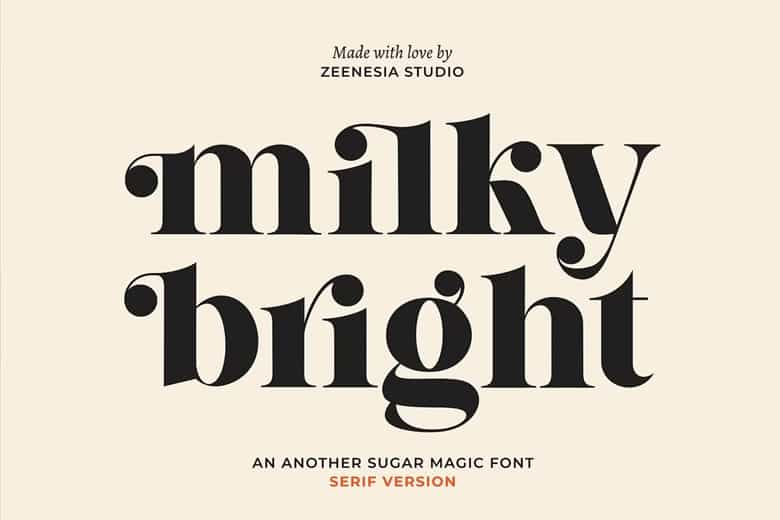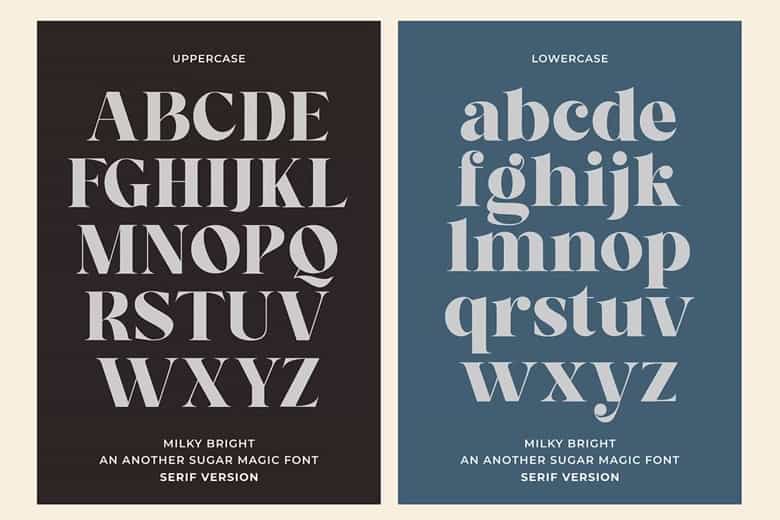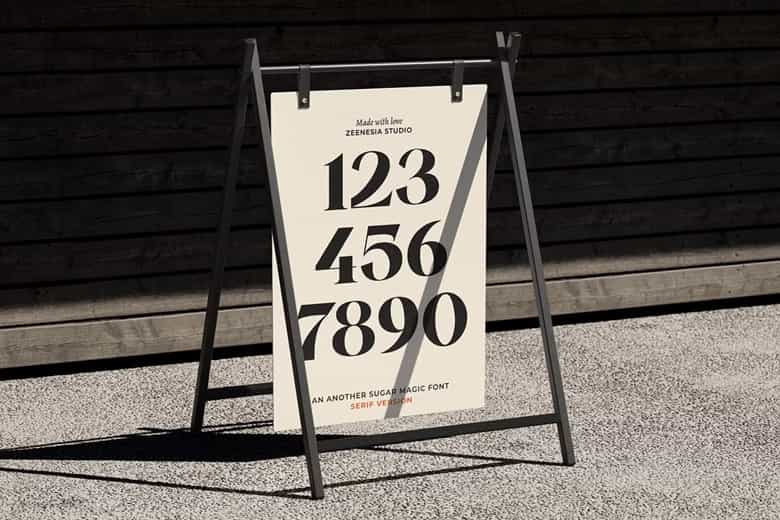
Milky Bright is a nice serif font that combines elegance and playful professionalism in a perfect way. Milky Bright is the more classical font created with the same idea as the playful font, Sugar Magic. It is ideal for producing sensational title, elegant logo, and beautiful designs, yet retain the sense of friendliness and comfort.